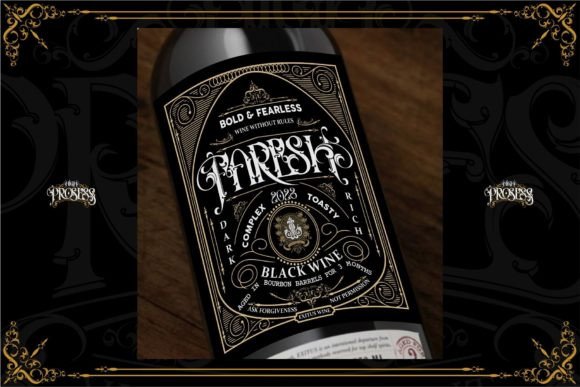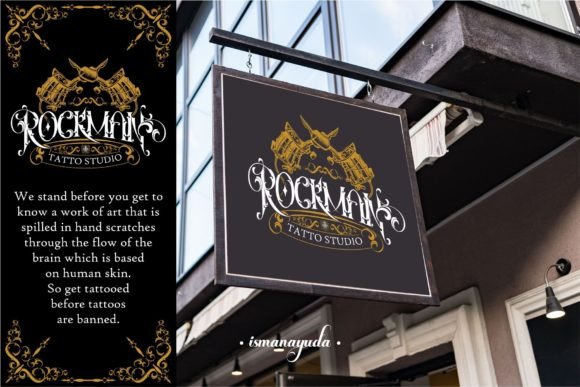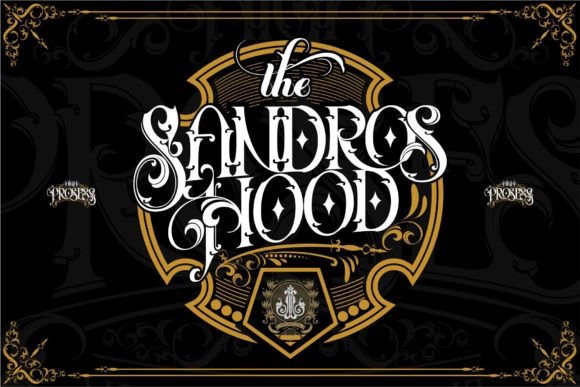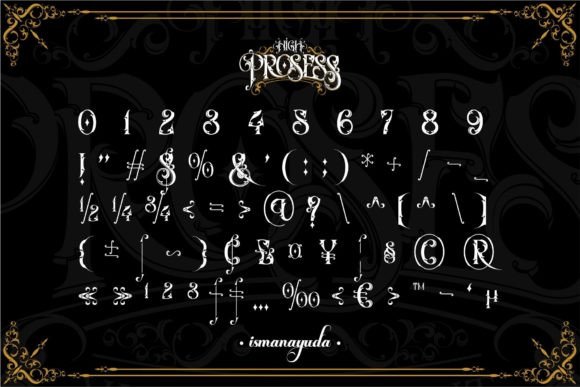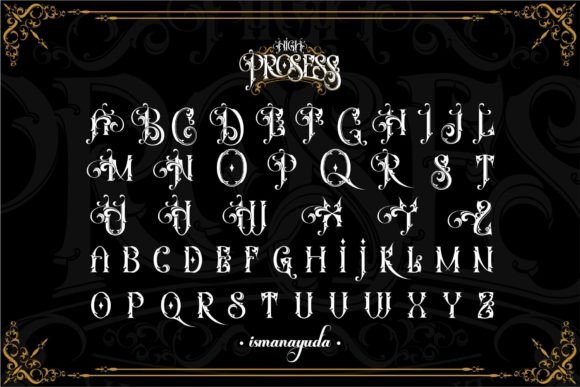
The Designer’s Delight: High Prosess Font
I’ll never forget the time I was working on a project for a client who wanted a bold, eye-catching font to make their brand stand out. I scoured the internet, tried countless fonts, but nothing seemed quite right. That was until I stumbled upon High Prosess, a bold and thick lettered blackletter font that instantly caught my attention. In this article, I’ll share my experience with High Prosess, its features, and how to make the most of it in your designs.
My Honest Review of High Prosess
I’ve had the pleasure of working with High Prosess on several projects, and here’s what I think:
• ✨ Bold and impactful: High Prosess is perfect for making a statement. Its thick letters and blackletter style demand attention and add a touch of sophistication to any design.
• ✅ Versatile: Despite its bold nature, High Prosess works surprisingly well in various contexts, from logos and titles to headings and even body text.
• 💯 Easy to read: The font’s clear and distinct lettering ensures that your message is conveyed clearly, even at smaller sizes.
However, no font is perfect, and High Prosess has a few quirks:
• 🤔 Limited pairing options: High Prosess is a bold font, and finding complementary fonts that don’t get overpowered can be a challenge.
• ⚠️ Not ideal for body text: While it’s legible, High Prosess is still a bold font, and using it for extended body text can be overwhelming.
Alternatives to High Prosess
If you’re looking for similar fonts or want to explore other options, here are a few alternatives:
• Walsheim Gothic: A beautiful, elegant blackletter font with a more refined feel. Ideal for luxury brands or high-end designs.
• Anton: A bold, modern sans-serif font perfect for headlines and titles. Great for designs that need a strong, contemporary look.
• Kampfa: A rugged, bold blackletter font with a vintage feel. Suitable for designs that require a strong, edgy presence.
• Nixie One: A whimsical, elegant blackletter font with a touch of sophistication. Ideal for designs that need a bit of flair and personality.
The Story Behind High Prosess
High Prosess was designed with the intention of creating a bold, impactful font that would make a statement. Inspired by traditional blackletter fonts, the designer aimed to craft a font that was both elegant and powerful. The result is a versatile font that works well in various design contexts.
What is High Prosess best used for? High Prosess is best used for titles, headings, and bold statements. Its blackletter style and bold lettering make it perfect for making an impact.
Can I use High Prosess for body text? While High Prosess is legible, it’s not ideal for extended body text due to its bold nature. It’s best used for short paragraphs or headings.
Is High Prosess suitable for digital use? Yes, High Prosess works well in digital contexts, including websites, social media, and digital marketing materials.